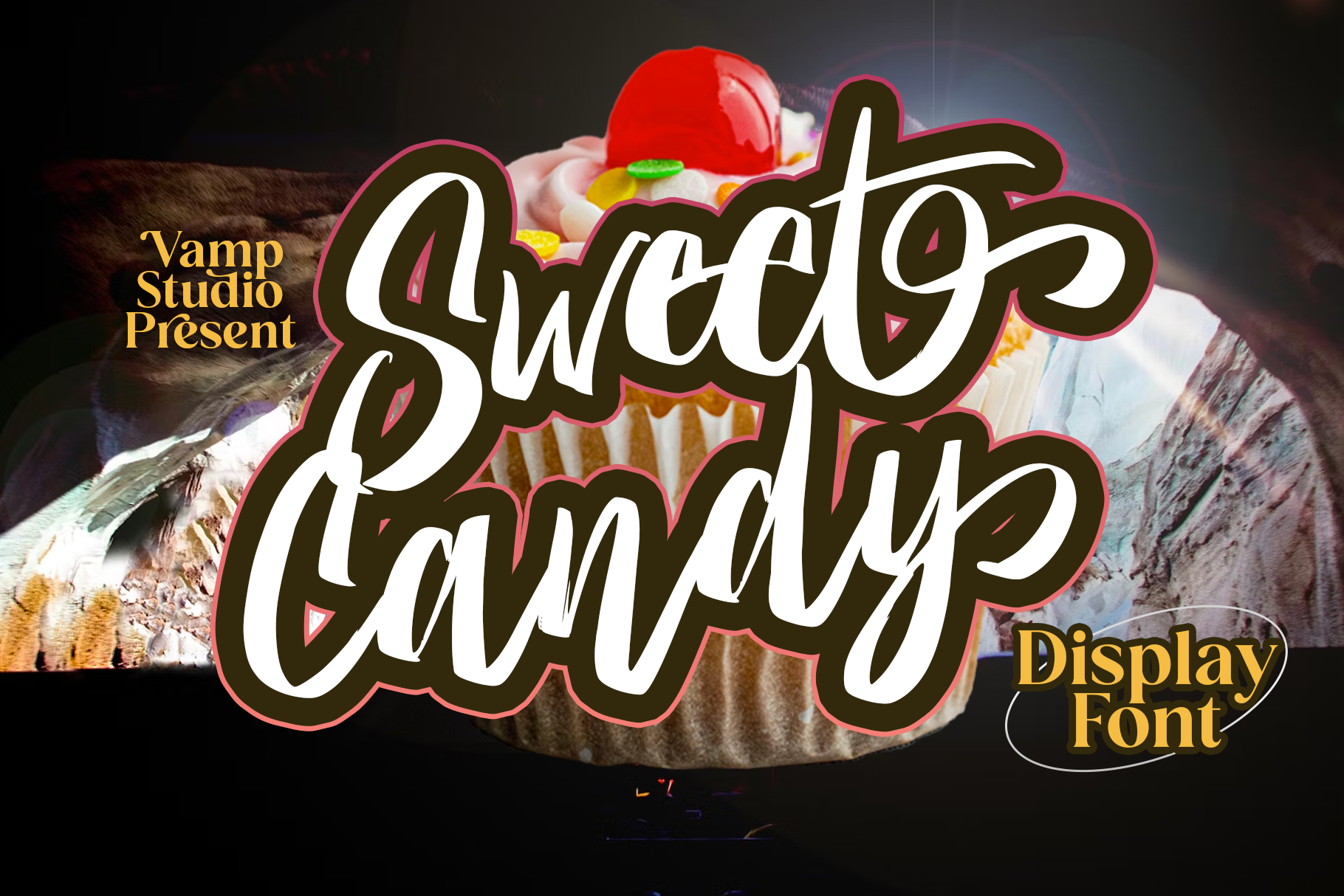
Sweet Candy Signature Script Font
Introducing "Sweet Candy Script Font" – Satisfy Your Design Cravings with Delightful Whimsy!
Dive into a world of sugary sweetness with "Sweet Candy," a playful script font designed to add a deliciously charming touch to your creative projects.
- Irresistible Playfulness: Sweet Candy brings a whimsical charm, perfect for invitations, branding, and all your creative endeavors.
- Sugary Elegance: Each character swirls with delightful allure, evoking the joyful essence of candy-coated creativity.
- Versatile Creativity: Whether for logos, packaging, or social media, Sweet Candy Script Font adds a sweet and playful flair.
Indulge your design senses in the delightful possibilities as "Sweet Candy Script Font" becomes your go-to choice for projects that crave a touch of lighthearted whimsy.
Sweet Candy is perfect for branding projects, logo, wedding designs, social media posts, advertisements, product packaging, product designs, label, photography, watermark, invitation, stationery and any projects that need handwriting taste.